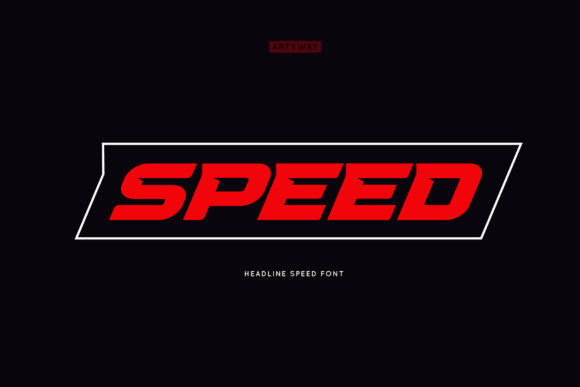
Introducing the perfect solution to elevate your design game - Speed Font! This bold display font is the answer to all your font needs, offering a unique charm that is hard to resist. Created by artyway, this font is the ideal choice for those seeking the best fonts for plain text.
With sharp corners and a slight slope for dynamic effect, Speed Font boasts easy visual readability that makes it perfect for headlines. Whether you're designing for sports events, automotive posters, logos or monograms, Speed Font is the perfect addition to your design arsenal.
Say goodbye to boring and predictable fonts, and embrace the unique charm of Speed Font. With its captivating style, this font is sure to make your design stand out from the crowd. Its sleek and modern design is perfect for those looking to make an impact and leave a lasting impression.